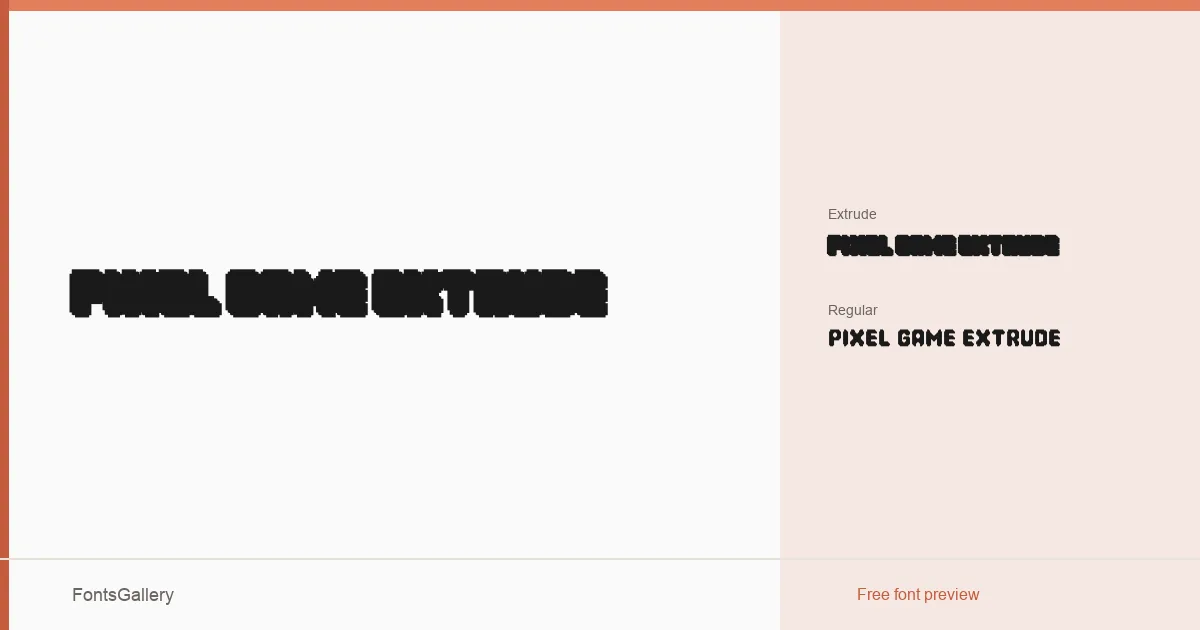
About Pixel Game Extrude Font
There is a deliberate roughness to Ahmad Suhadi's pixel-grid lettering — the kind that reads as grit rather than accident. Built in FontCreator 11.5, the family pairs two OTF cuts: Regular Regular, which lays down the base pixel forms, and Regular Extrude, which adds a pushed, dimensional quality that puts real weight behind the shapes.
This is display type rooted in the bold, grunge end of the arcade aesthetic — playful enough to feel approachable, vintage enough to carry some edge. The pixelated construction gives every character a blocky geometry that holds up large, and the extruded variant amplifies that presence without losing the underlying grid logic. Both cuts are delivered in OTF, covering the Latin character set.
The family earns its keep on posters, social media graphics, T-shirt designs, and logo or branding work where a retro-gaming sensibility fits the brief. For contrast and balance, the listed pairing options — Helvetica, Aresink, Alexandria, Bizantheum, and Audex — offer a range of directions, from clean neutrality to something with its own character.